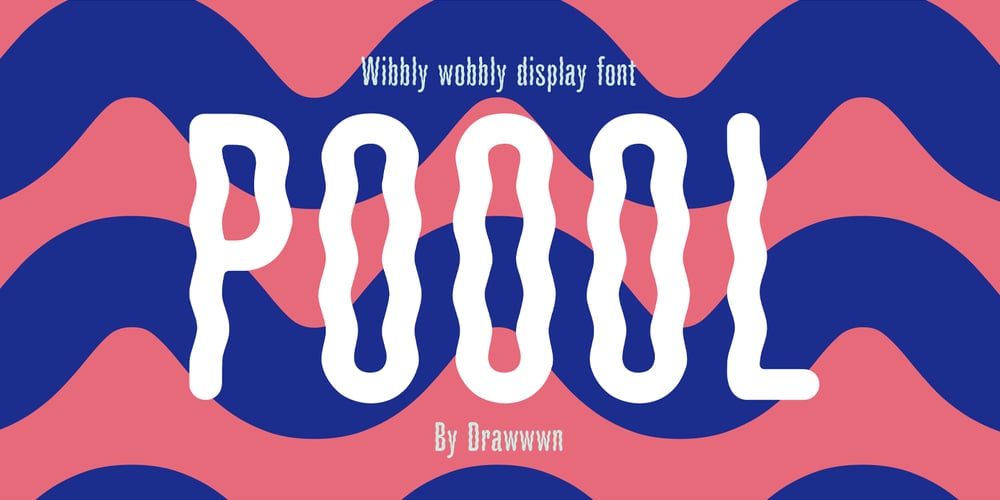
Poool Font Family was designed by Ryan Thomas and published by Drawwwn. Poool contains 4 styles and family package options. Poool is a fun and wobbly display font. Perfect for pasta branding or spa posters, sweet factories or samba classes. It comes in four styles to help you get in Ibiza villa vibes. Just jump into the Poool!